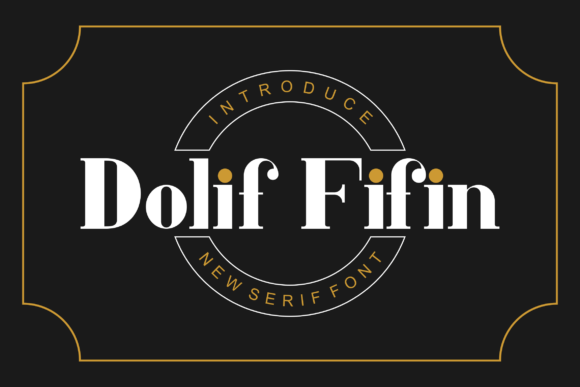
Embark on a typographic adventure with Dolif Fifin, the quintessence of boldness and authenticity. This display font, meticulously crafted by cozzdesign0, is a veritable feast for the eyes, leaving an unforgettable impression on all who behold it.
Whether you're a master of the craft or just starting your design journey, Dolif Fifin is your steadfast companion. Its versatility knows no bounds, making it the perfect choice for a myriad of creative endeavors. Let your imagination soar as you craft captivating digital designs, deliver impactful presentations, or create greeting cards that speak volumes.
Dolif Fifin's unwavering boldness commands attention, while its authenticity whispers a tale of timeless elegance. Your creations will exude an air of confidence and sophistication, leaving a lasting impact on your audience.
Unleash the power of Dolif Fifin today and elevate your designs to unparalleled heights. Let its captivating presence ignite your creativity and transform your visions into extraordinary realities.